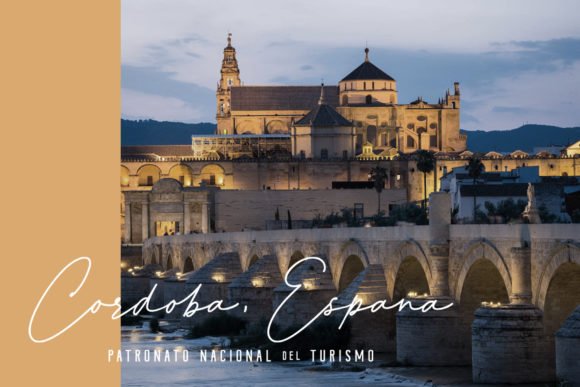
Whiteflower Font
Whiteflower is a delicate and flowing script font, that emanates sophistication and elegance. Its stylish alternates and ligatures make this font the perfect match for any project.